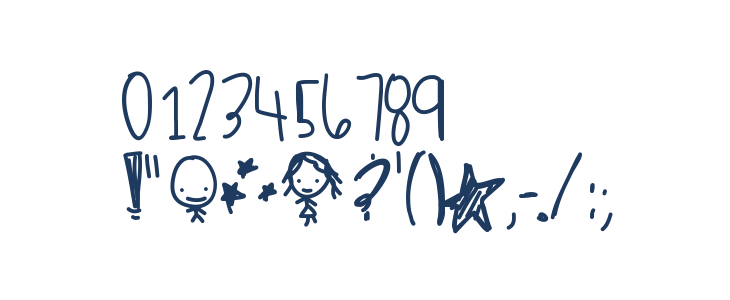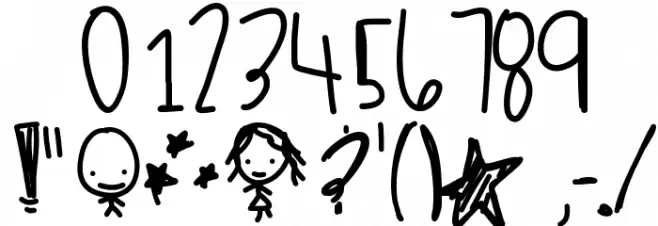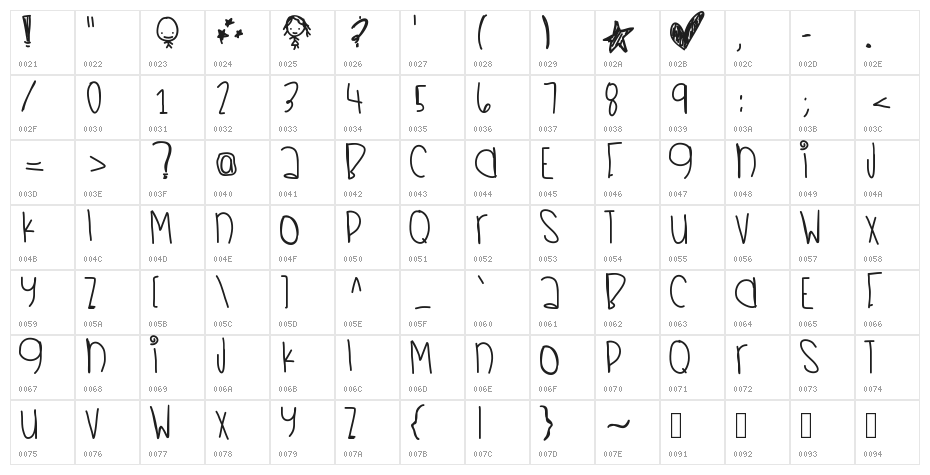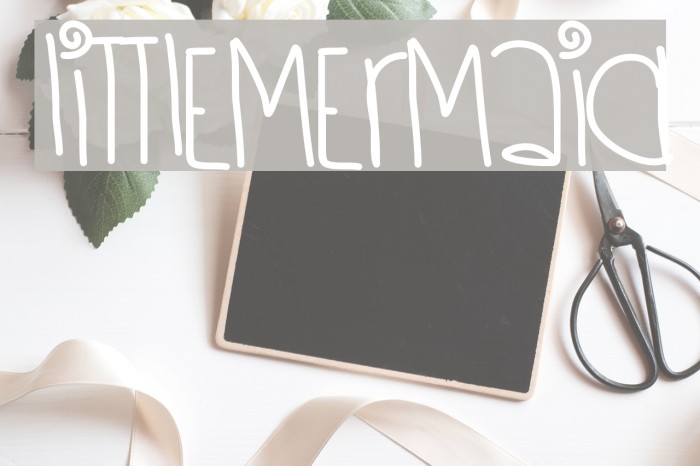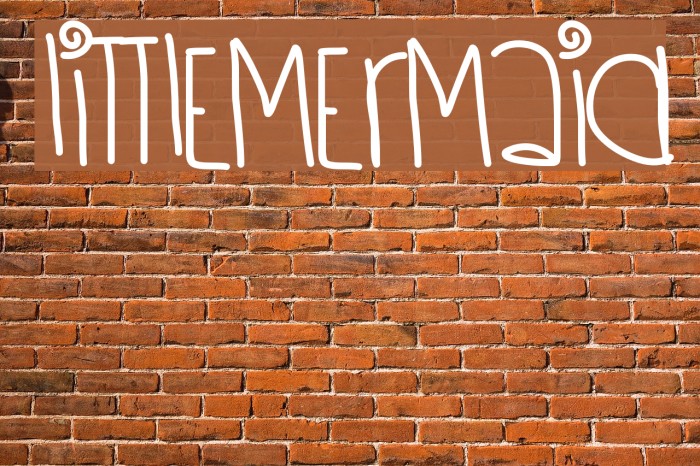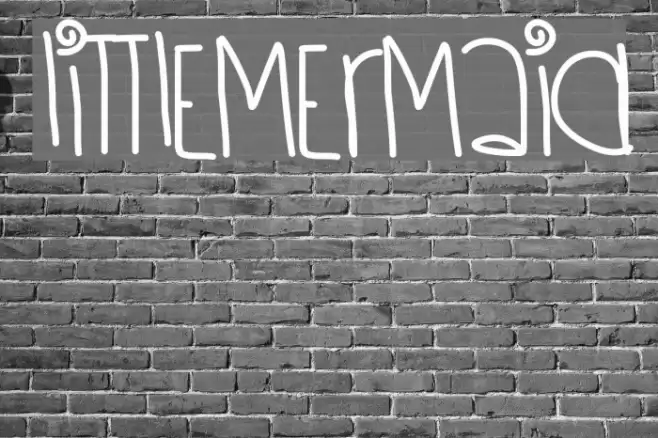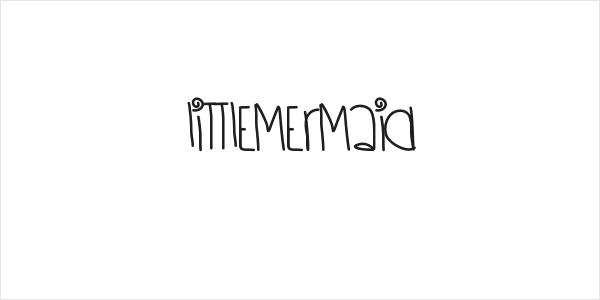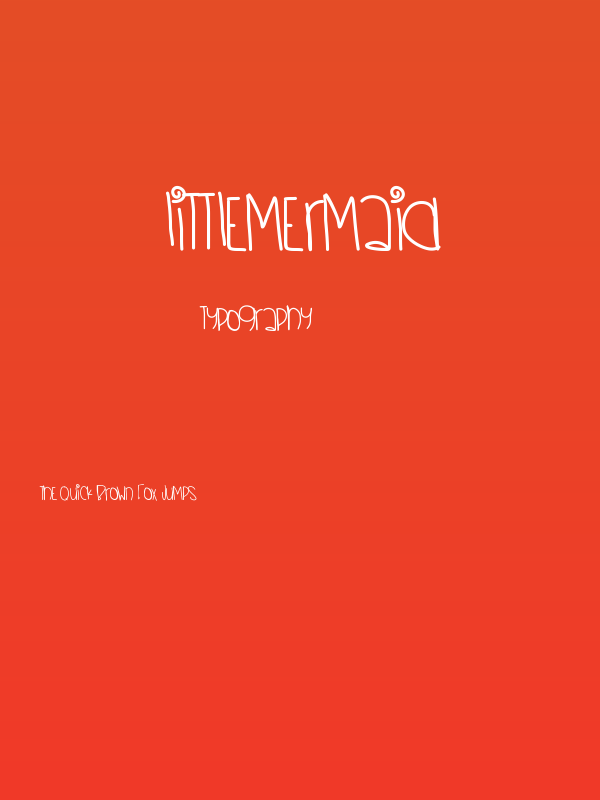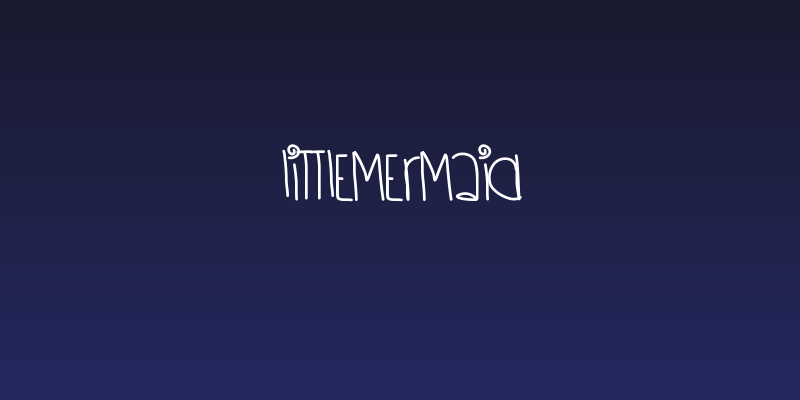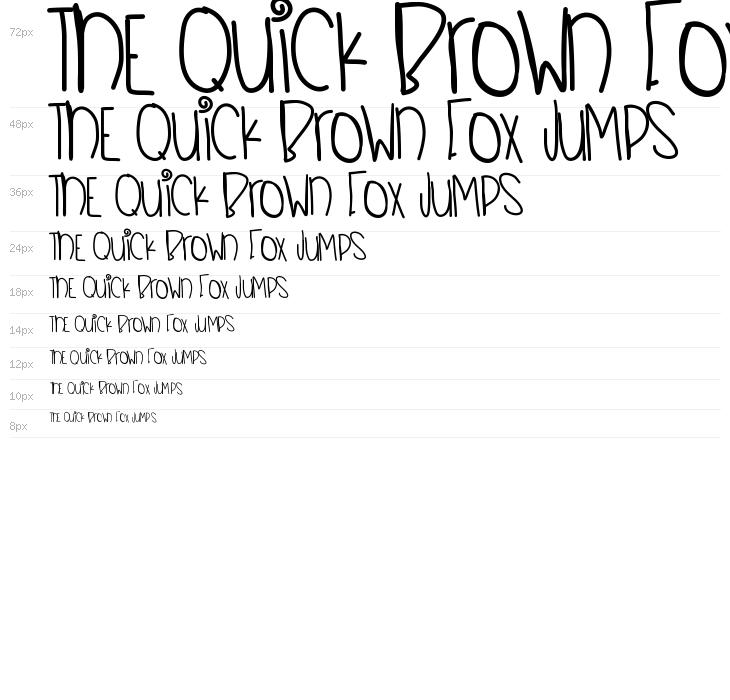
LittleMermaid Font
LittleMermaid Description
This font features a playful and whimsical style, characterized by its tall, narrow letters and slightly irregular strokes. The uppercase and lowercase letters maintain a consistent height, giving it a uniform appearance. The characters have a hand-drawn quality, with rounded edges and a casual, friendly feel. The numbers and special characters follow the same playful design, adding to the font's cohesive look. This font is ideal for projects that require a fun and informal touch, such as children's books, playful branding, or creative invitations.
| Overall Style | Whimsical |
| Use Case | Headlines, Logos, Informal text |
| Proposed Projects | Children's books, playful branding, creative invitations, casual posters. |